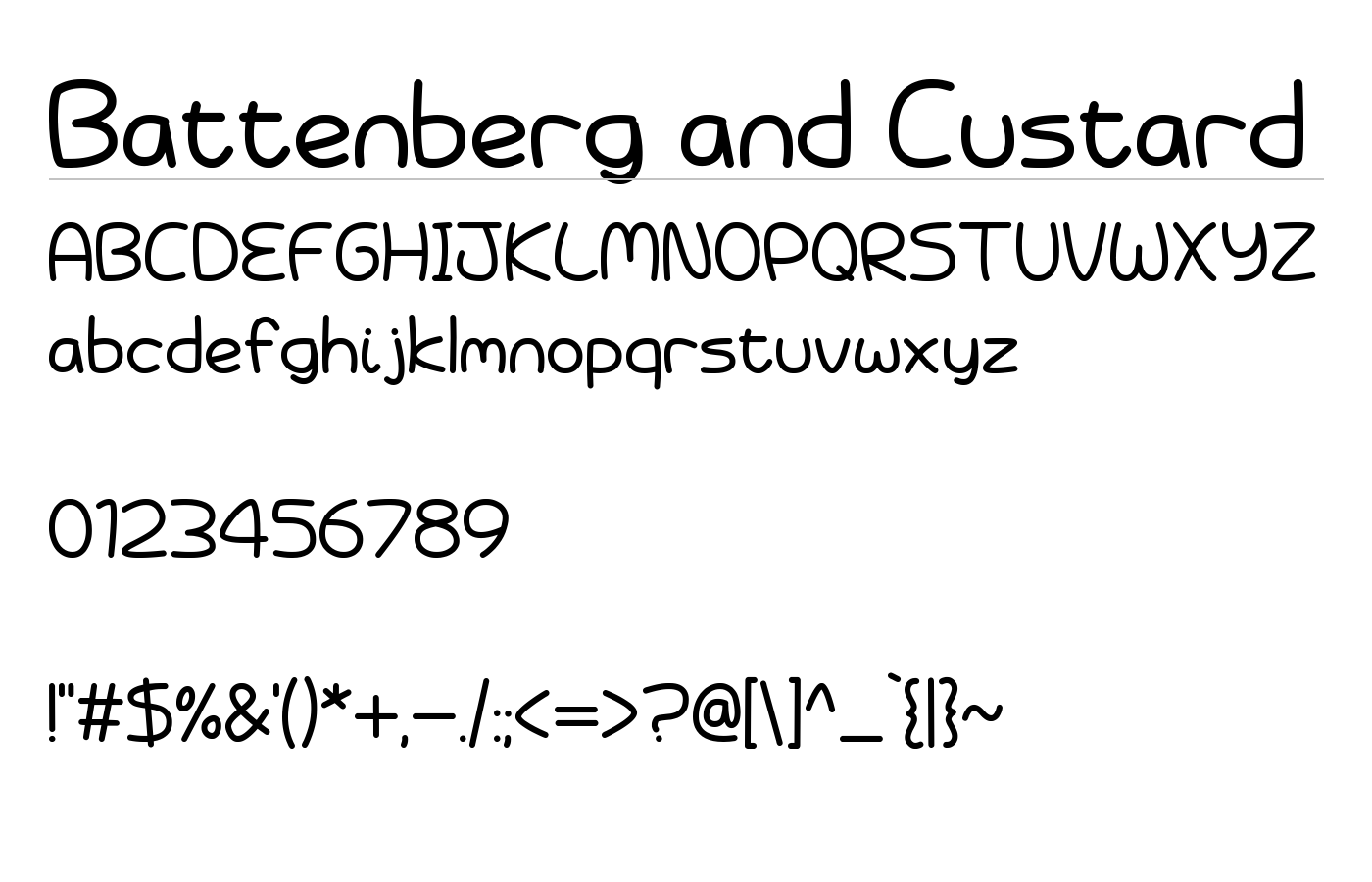
Battenberg and Custard is a playful, handwritten sans serif font characterized by its casual, rounded letterforms and moderate x-height that give it an approachable and friendly feel. Its clean strokes and slightly irregular shapes create a charming, informal style perfect for fun, lighthearted designs. This font works well for children's books, casual branding, and creative projects where a warm, personal touch is desired.
Battenberg and Custard Font
About Battenberg and Custard Font